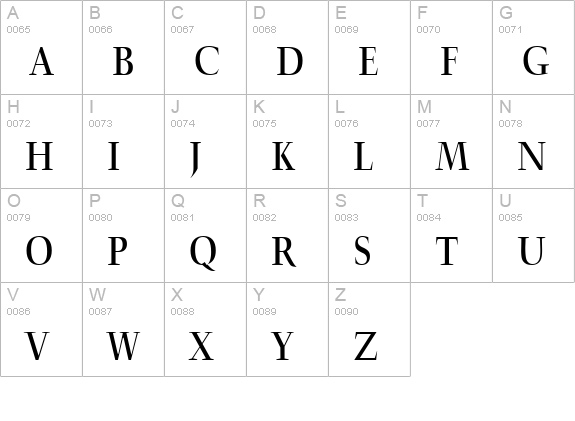
TrumpetLite-Normal is the standard, neutral variant in the TrumpetLite typeface family \xE2\x80\x94 well suited to general body text, paragraphs, and standard typographic work.
TrumpetLite-Normal is a remarkable font that exudes elegance and sophistication. With its clean lines and balanced proportions, this font is perfect for a wide range of design projects. Whether you're working on a professional presentation, creating eye-catching advertisements, or designing a captivating logo, TrumpetLite-Normal will elevate your work to new heights. This font is a testament to the artistry of typography, with its carefully crafted letterforms and exquisite curves. Its versatility allows it to seamlessly blend into any design style, whether it's modern and minimalistic or classic and ornate. TrumpetLite-Normal adds a touch of refinement and class to any visual composition. One of the most appealing aspects of TrumpetLite-Normal is that it is free to download at FontsMarket.com. This means that you can enhance your projects without any financial constraints. The availability of this font at no cost makes it an ideal choice for both professional designers and casual enthusiasts who want to add a touch of sophistication to their creations. By using TrumpetLite-Normal, you can effortlessly communicate your message with clarity and elegance. Its legibility ensures that your text will be easily readable, no matter the size or context. Whether you're designing a poster, a website, or a brochure, this font will make your content stand out and leave a lasting impression on your audience. With its timeless appeal and free availability, TrumpetLite-Normal is a font that should not be missed. Download it today from FontsMarket.com and experience the beauty and versatility of this remarkable typeface.